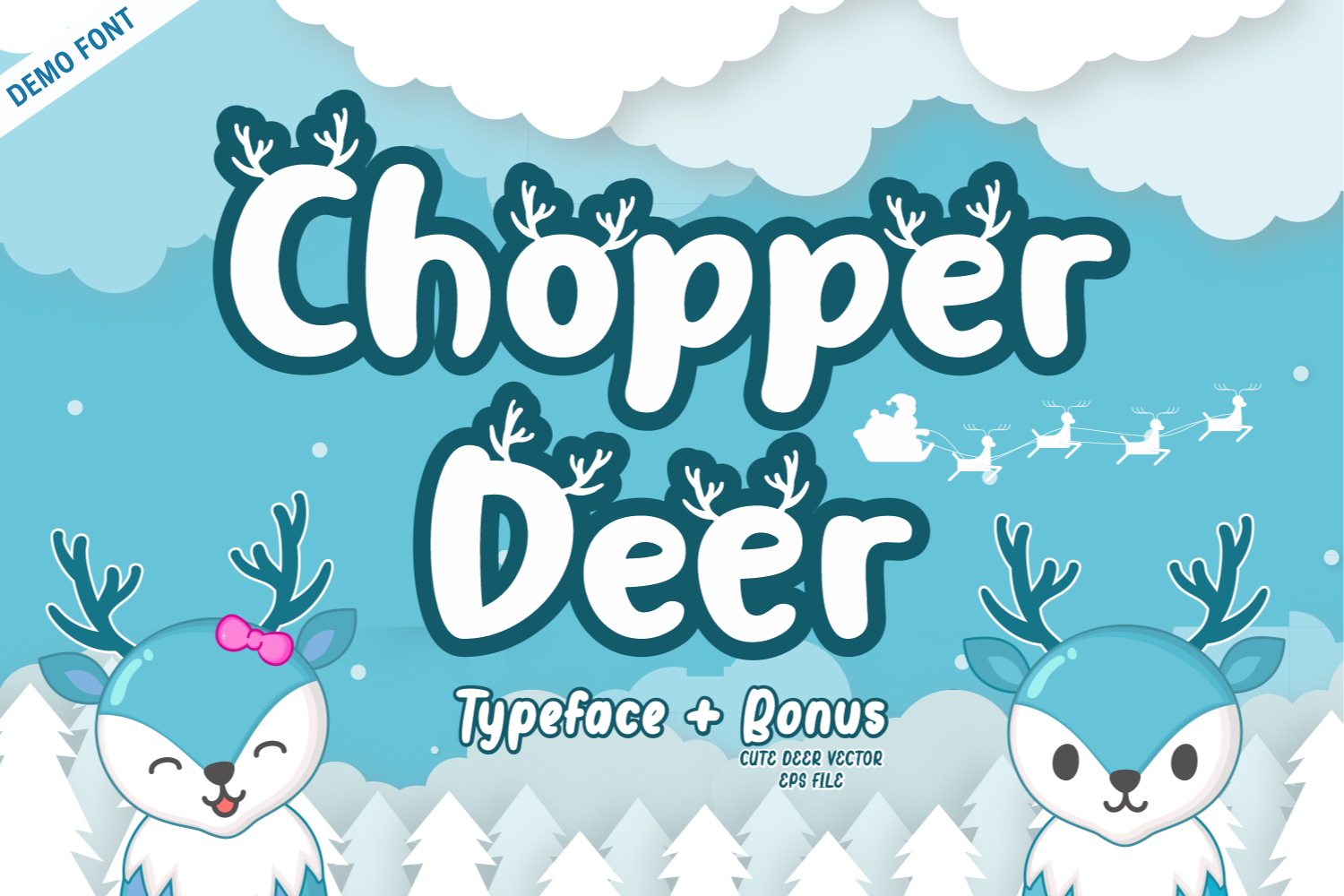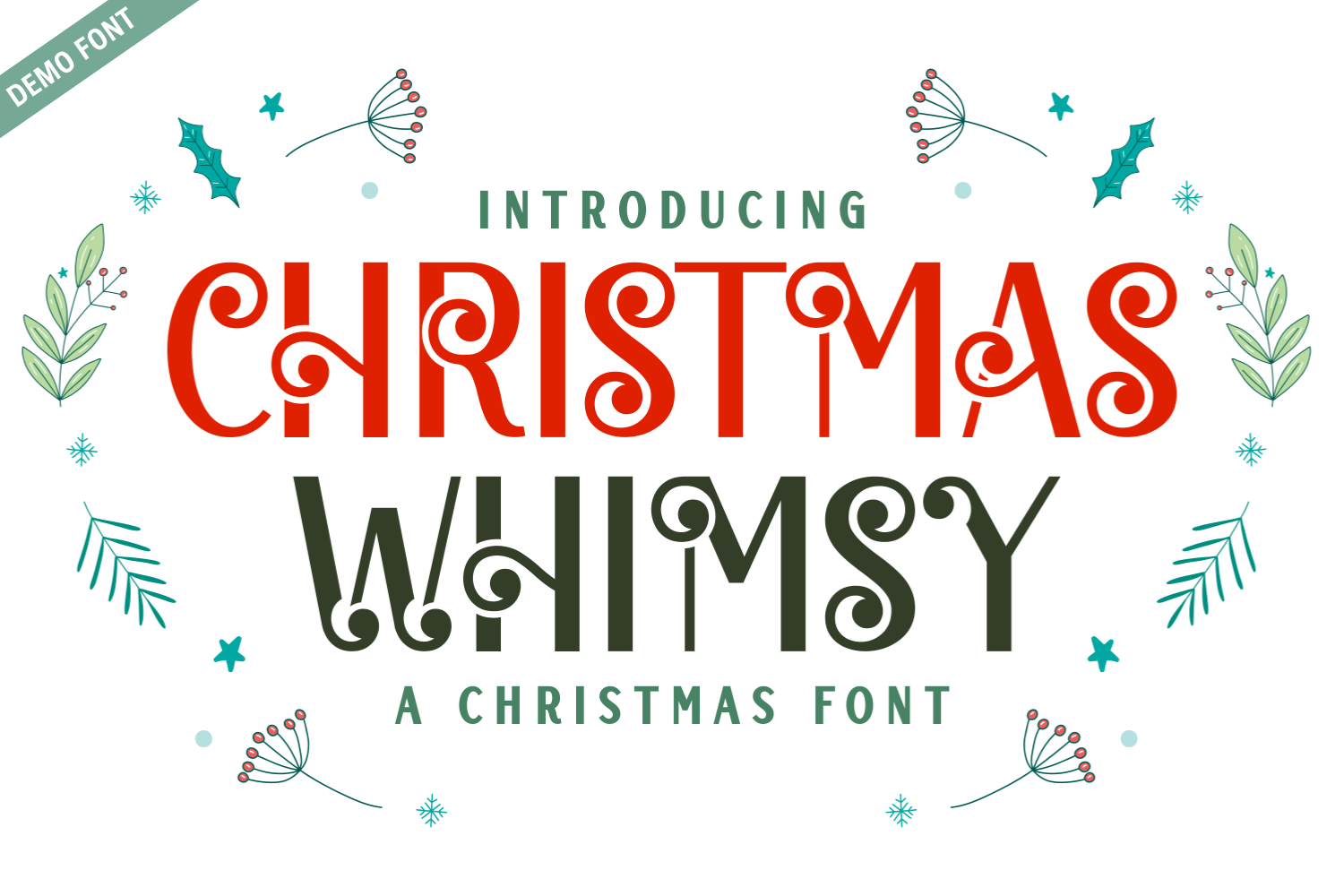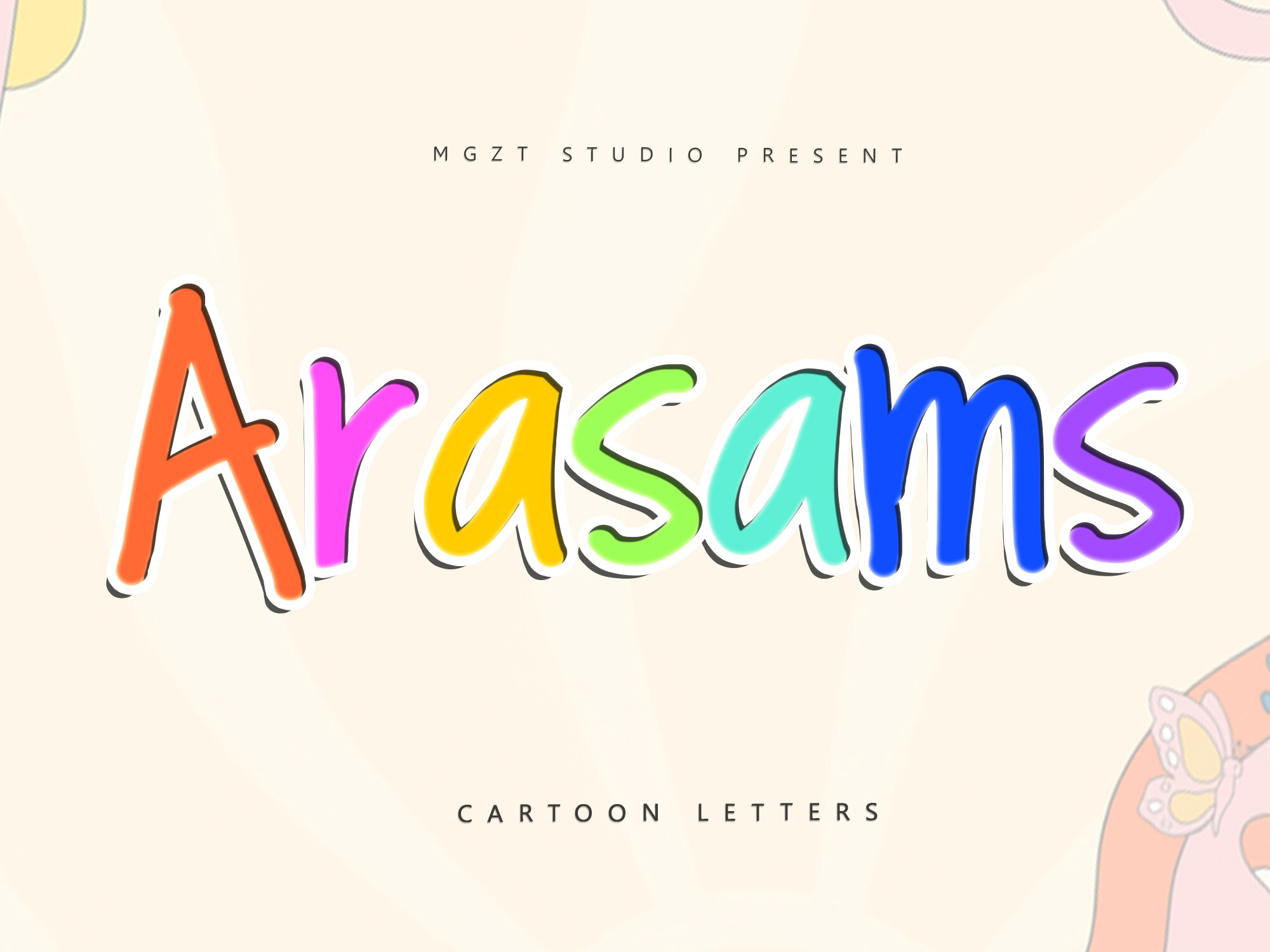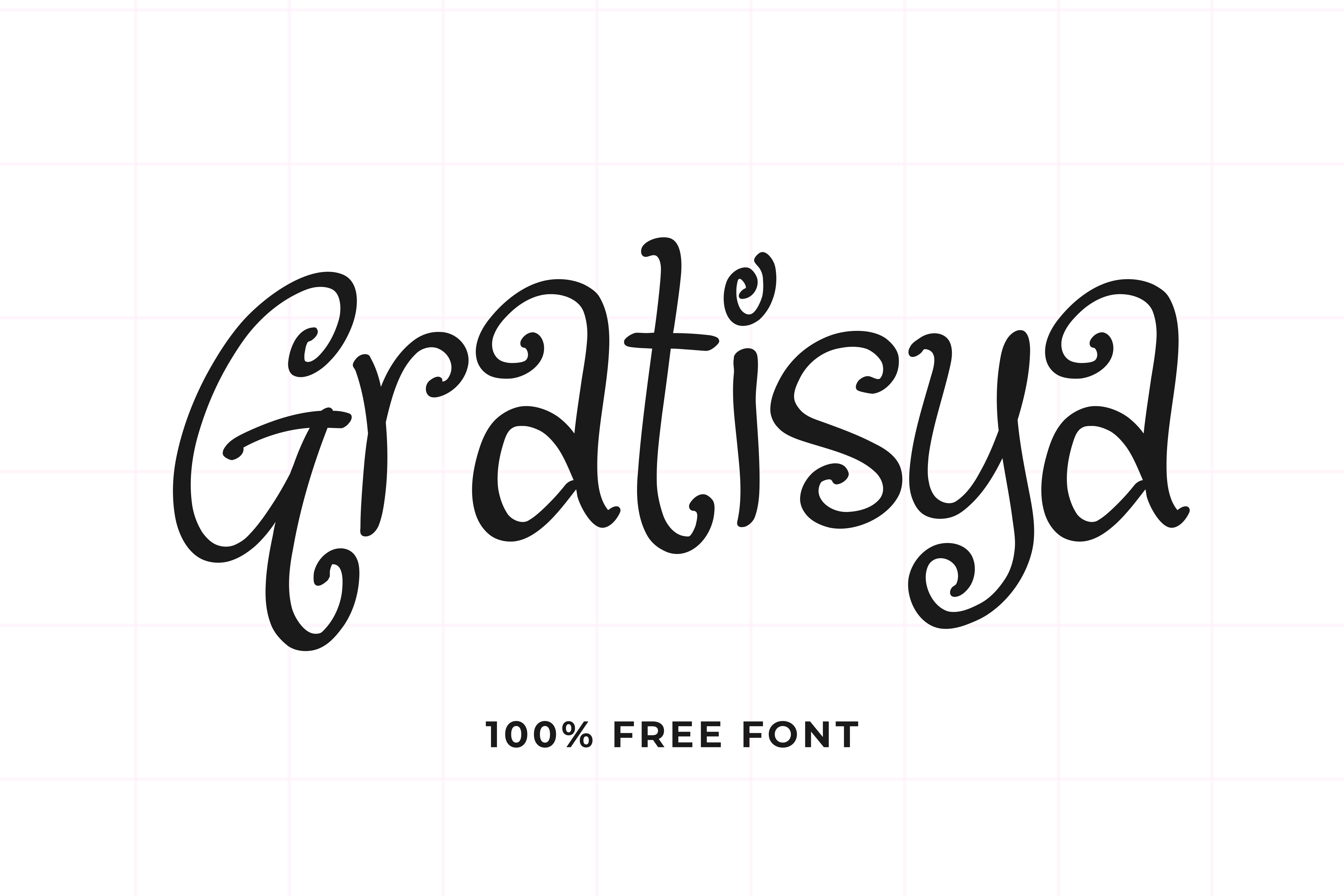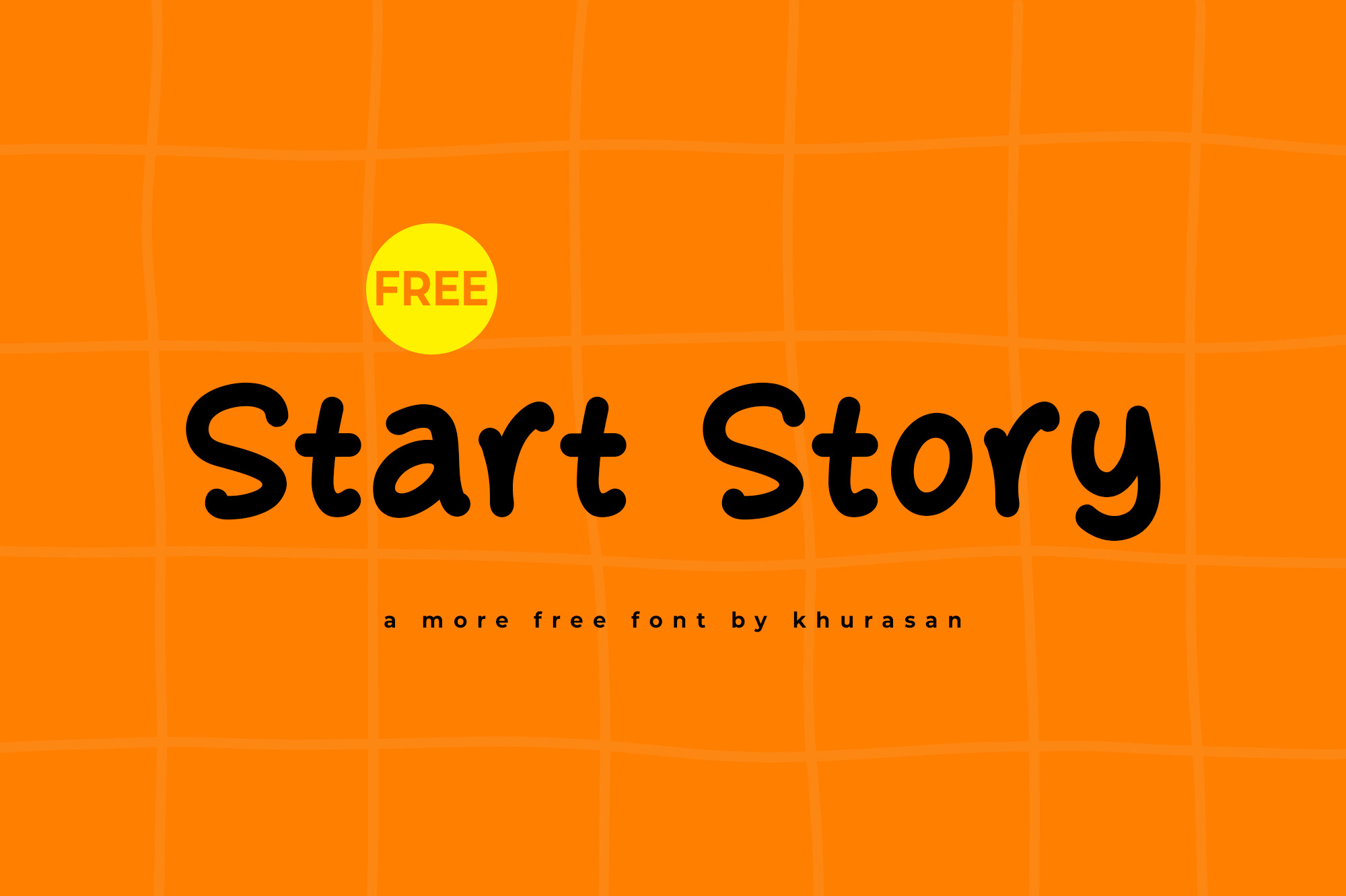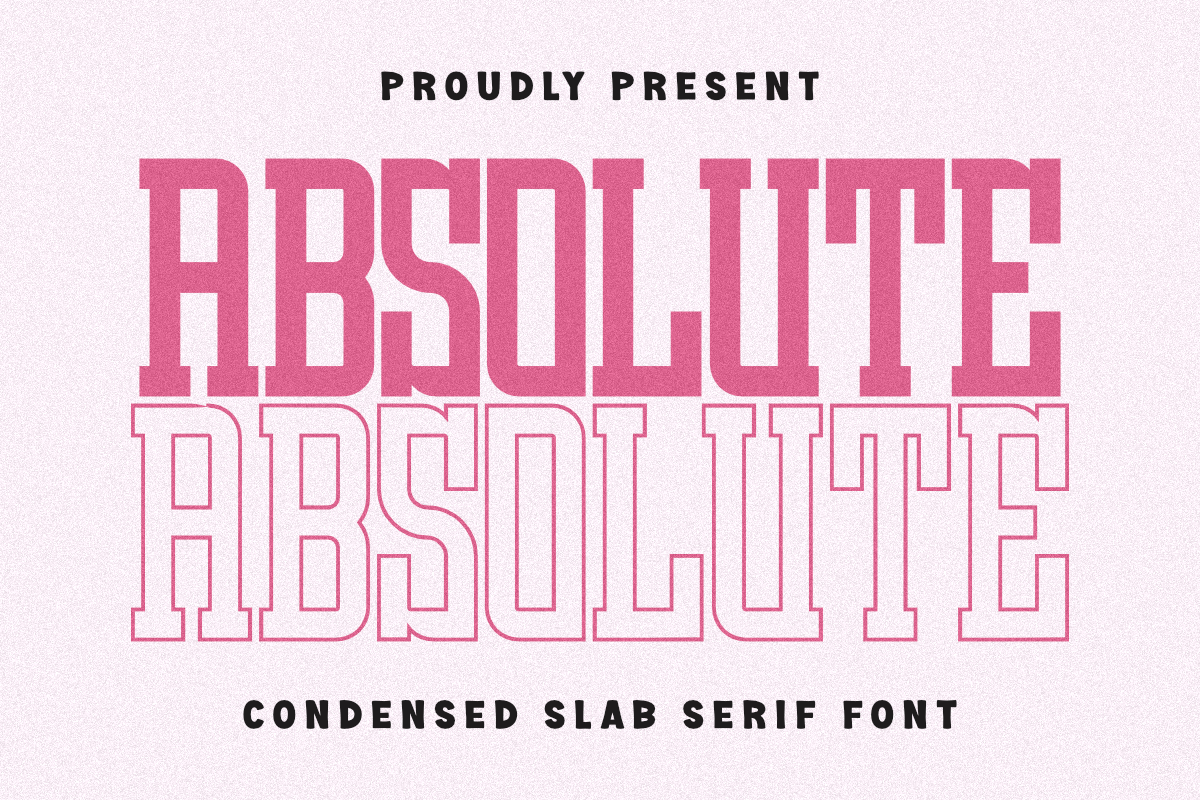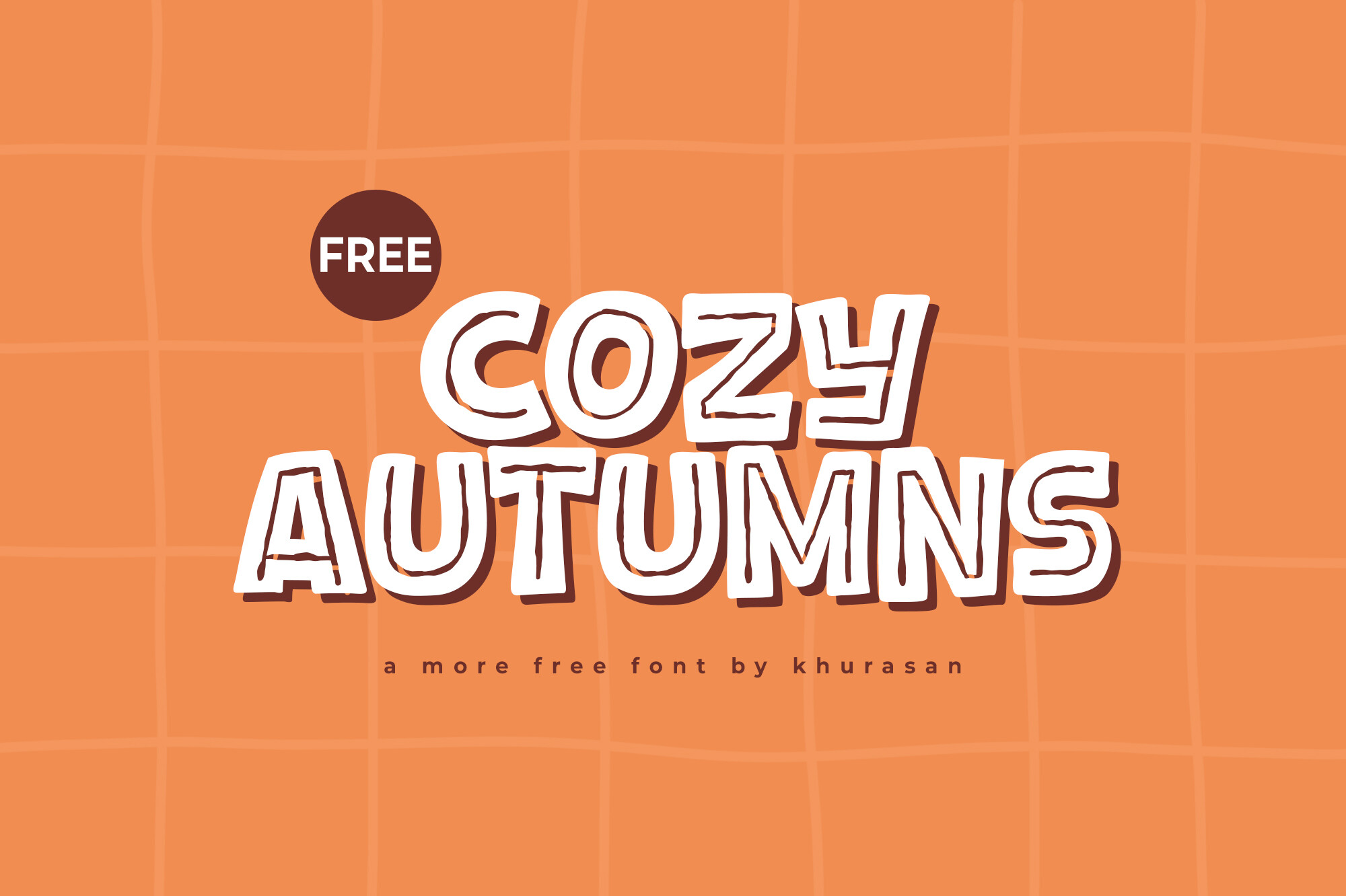
This week's Free Fonts Friday features a charming collection of whimsical and festive fonts that are perfect for your holiday designs and creative projects. Whether you're crafting Christmas cards, designing logos, or creating eye-catching posters, these fonts will add a playful touch to your work. Explore the enchanting characteristics of each typeface, including Chopper Deer Demo, Feanista Loving, Short Pics, and more. With unique styles ranging from cheerful to elegant, these fonts will inspire your creativity and elevate your designs. Best of all, they are available for free commercial use! Dive in and let these fonts help you spread joy and charm this season.
Chopper Deer Demo
Chopper Deer Demo is a joyful display font that embodies the spirit of the holidays. Its whimsical design features rounded, bouncy characters adorned with playful antlers, making it a perfect choice for festive projects like Christmas cards and children's books. The font's friendly and fun aesthetic is sure to bring warmth and smiles to your creative endeavors. Along with the font, you will also receive a bonus vector pack of adorable deer illustrations, ideal for enhancing your seasonal designs. Embrace the magic of winter with Chopper Deer Demo and let your creativity shine!
Feanista Loving Demo
Feanista Loving Demo is an elegant script font that exudes sophistication and charm. Its graceful curves and balanced strokes reflect the beauty of refined handwriting, making it perfect for upscale designs. The font features stylish uppercase letters with flourishes, alongside versatile lowercase options that cater to various design needs. With seven stylistic sets, designers can customize text to match their creative vision. Ideal for wedding invitations, fashion branding, and high-end logos, Feanista Loving beautifully bridges traditional script with contemporary aesthetics. This font empowers your designs with elegance and individuality, making it a versatile addition to your creative toolkit.
Short Pics
Short Pics is a contemporary and playful display font that adds a fun twist to your design projects. Its charming characters make it a great choice for various applications, including posters, logos, and magazine covers. This font's versatility allows it to shine in a wide range of creative endeavors, ensuring your designs capture attention and stand out. With its modern aesthetic, Short Pics will help elevate your projects, bringing a touch of whimsy and style to everything you create. Make your designs memorable with this delightful font.
Christmas Whimsy Demo
Christmas Whimsy is a delightful display font that captures the festive spirit of the holiday season. With its playful curls and clean lines, this typeface blends vintage charm with contemporary style, making it perfect for a variety of seasonal projects. Use it for Christmas cards, holiday invitations, or DIY craft projects to add a whimsical touch to your designs. Christmas Whimsy is sure to brighten up your creative work and spread the joy of the season. Let your imagination run wild with this cheerful font!
Arasams
Arasams is a playful and whimsical font that captures the essence of childhood joy. With its comic flair and cheerful aesthetic, this delightful typeface is ideal for kids' projects and designs that aim to evoke a sense of fun and creativity. The font's charming characters encourage imaginative design, making it perfect for children's books, playful posters, and vibrant graphics. Let Arasams inspire your creativity and transform your projects into a world filled with whimsy and laughter.
Gratisya
Gratisya is a charming, swirly font that adds a touch of handmade warmth to your designs. Its playful, flowing characters make it a great choice for branding, quotes, and various creative projects like cards and social media graphics. This font captures a joyful essence, making it perfect for designs that aim to spread happiness and positivity. Whether you're creating tote bag designs or festive banners, Gratisya brings a delightful personality to your work, making it memorable and inviting. Add a sprinkle of magic to your next project with this enchanting font!
Start Story
Start Story is a fresh and lively display font that brings a modern flair to your creative projects. Its unique style is perfect for posters, logos, book covers, and various designs that need to stand out. This font's versatility allows it to be easily paired with other typefaces, making it a fantastic choice for a wide range of applications. Whether you're creating eye-catching graphics or charming designs, Start Story is sure to elevate your work with its delightful character and engaging presence. Make a statement with this vibrant font that inspires creativity!
Absolute
Absolute is a striking Condensed Slab Serif font that delivers both boldness and versatility. This all-caps typeface features Regular and Outline styles, making it ideal for sports branding, varsity apparel, and retro-themed designs. Its clean lines and assertive presence ensure your messages make a significant impact, whether on posters, logos, or any display project. The layered styles allow for creative color combinations, adding depth and character to your designs. With Absolute, you can achieve a vintage collegiate look that resonates with your audience, making it a powerful addition to your design arsenal.
Charmelia
Charmelia is a modern handwritten script font that combines elegance with a playful touch. Its smooth curves and flowing strokes create a natural handwriting feel, perfect for designs that require a warm and personal vibe. This font is versatile, making it suitable for a variety of projects, from invitations to branding materials. With its charming aesthetic, Charmelia will enhance your creative endeavors and help your designs stand out effortlessly. Embrace the beauty of handwritten typography with this lovely font!